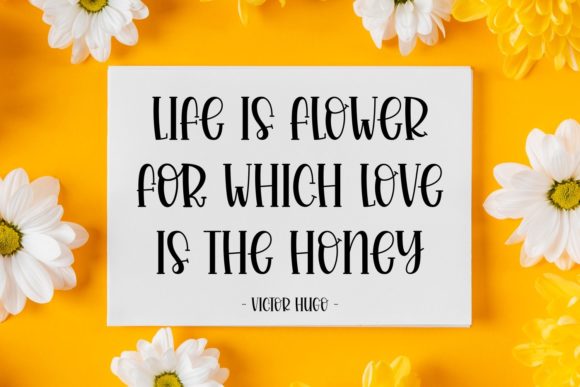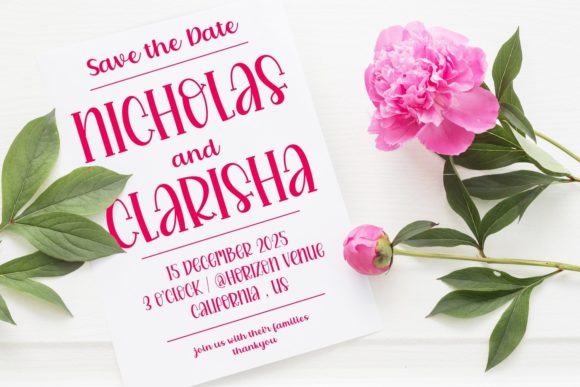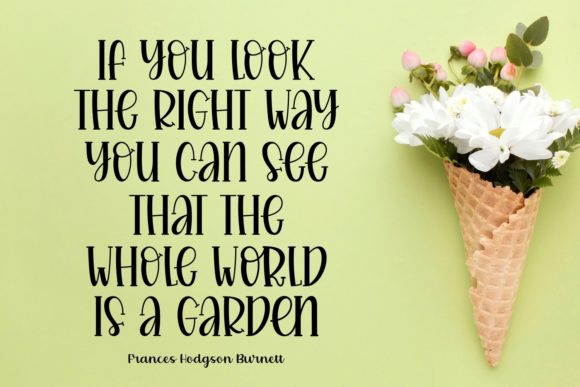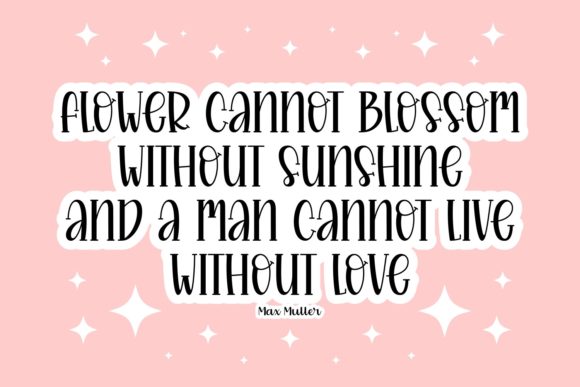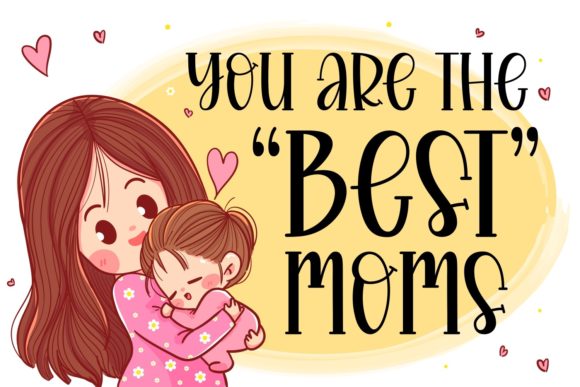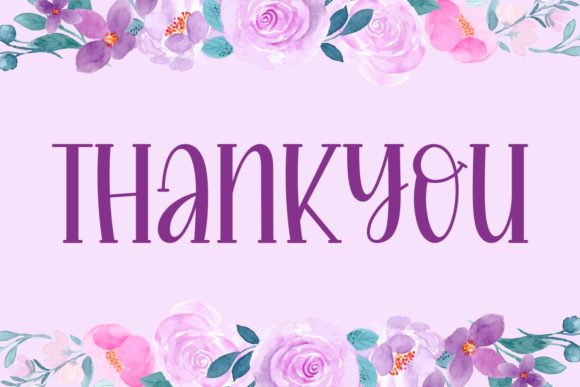
Introducing Florentia Font: The Whimsical Script Font for Creative Projects
Are you a designer or crafter looking for a unique and versatile font to elevate your creative projects? Look no further than Florentia Font, a whimsical script font with a relaxed theme that’s sure to become an incredible asset to your font library.
What is Florentia Font?
Florentia Font is a beautifully designed script font that exudes a sense of playfulness and elegance. Its relaxed theme makes it perfect for a wide range of creative projects, from branding and advertising to packaging and digital media. With its lovely style and flowing curves, Florentia Font is sure to add a touch of sophistication and whimsy to any design.
Key Features of Florentia Font
- Whimsical Script Style: Florentia Font features a unique and charming script style that’s perfect for creating eye-catching headlines, titles, and quotes.
- Relaxed Theme: The font’s relaxed theme makes it ideal for designs that require a friendly and approachable tone.
- Highly Versatile: Florentia Font can be used for a wide range of creative projects, from digital media to print materials.
- Elegant and Sophisticated: Despite its playful nature, Florentia Font has an elegant and sophisticated feel that’s perfect for high-end designs.
Why Choose Florentia Font?
So, why should you choose Florentia Font for your creative projects? Here are just a few reasons:
- Adds a Personal Touch: Florentia Font’s unique and whimsical style allows you to add a personal touch to your designs, setting them apart from more generic fonts.
- Enhances Readability: The font’s clear and flowing curves make it easy to read, even at smaller sizes.
- Perfect for Branding: Florentia Font’s relaxed theme and elegant style make it perfect for branding and advertising projects that require a friendly and approachable tone.
How to Use Florentia Font
Florentia Font is incredibly easy to use, even for designers who are new to script fonts. Here are a few tips for getting the most out of this beautiful font:
- Pair with Other Fonts: Florentia Font pairs perfectly with other fonts, including sans-serif and serif fonts.
- Experiment with Sizes: Don’t be afraid to experiment with different sizes and scales to create visual interest and hierarchy in your designs.
- Use for Headlines and Titles: Florentia Font is perfect for headlines and titles, but don’t be afraid to use it for body copy and other design elements as well.
In conclusion, Florentia Font is a versatile and whimsical script font that’s perfect for designers and crafters looking to add a touch of elegance and playfulness to their creative projects. With its relaxed theme, lovely style, and highly versatile nature, Florentia Font is sure to become an incredible asset to your font library.